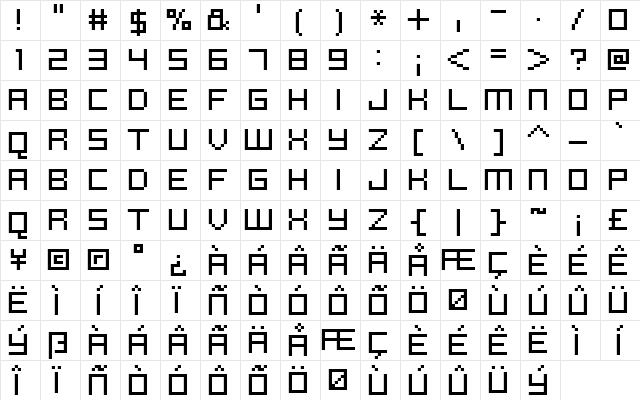
Complete FFF Reaction Condensed Regular glyph index. Displaying only characters natively supported by FFF Reaction Condensed Regular font.
FFF Reaction Condensed is a composed and adaptable typeface that performs quietly and consistently across a wide range of design contexts. Its narrow stance lets it pack a punch even in space-constrained designs.